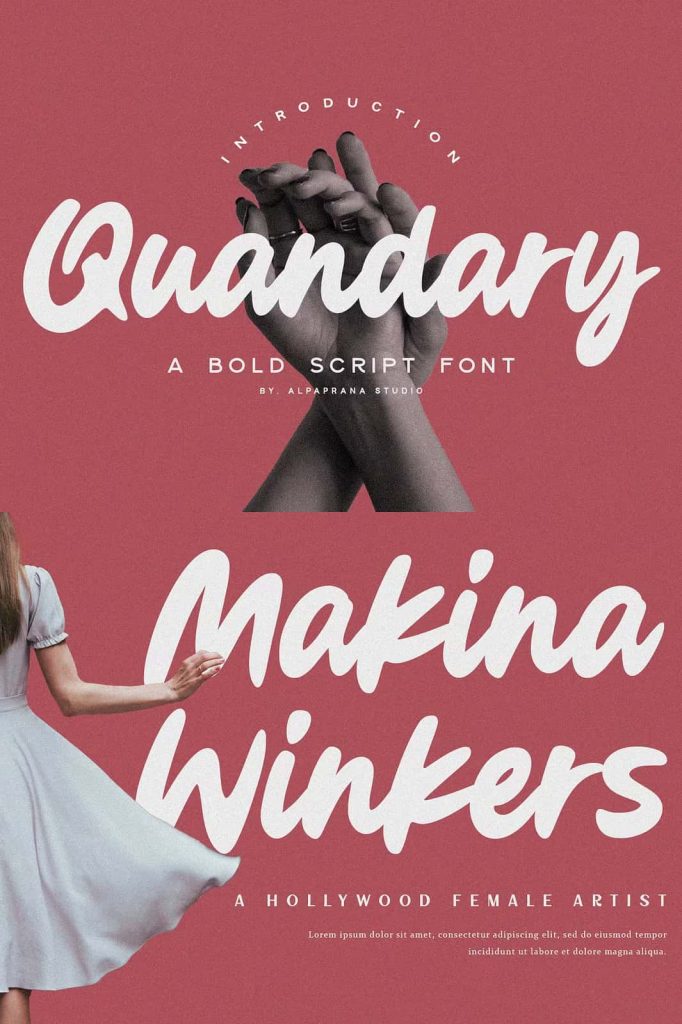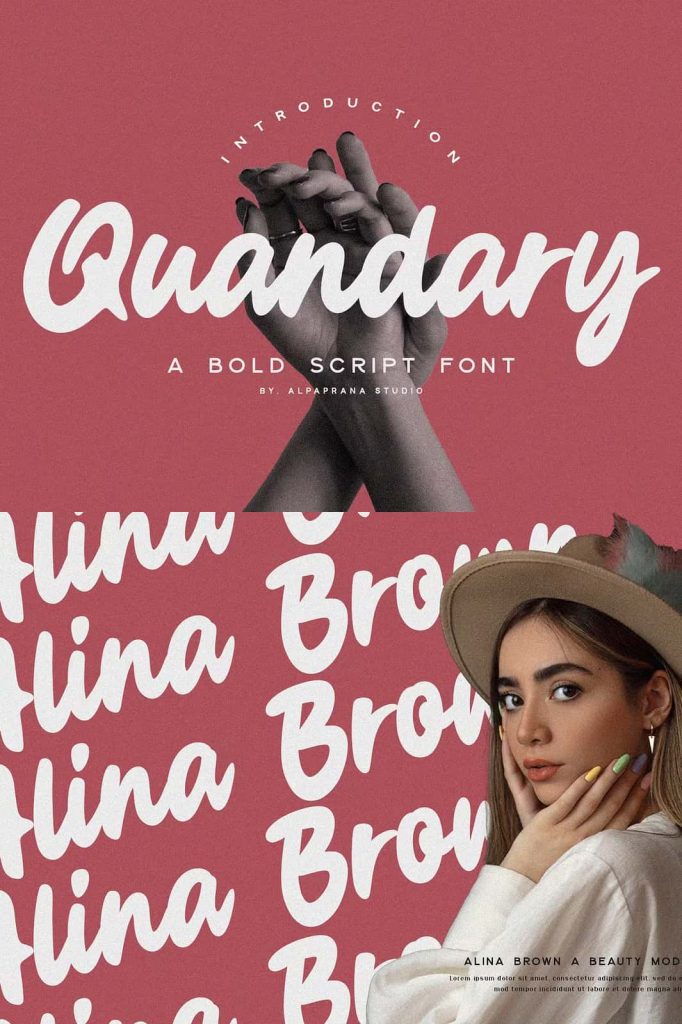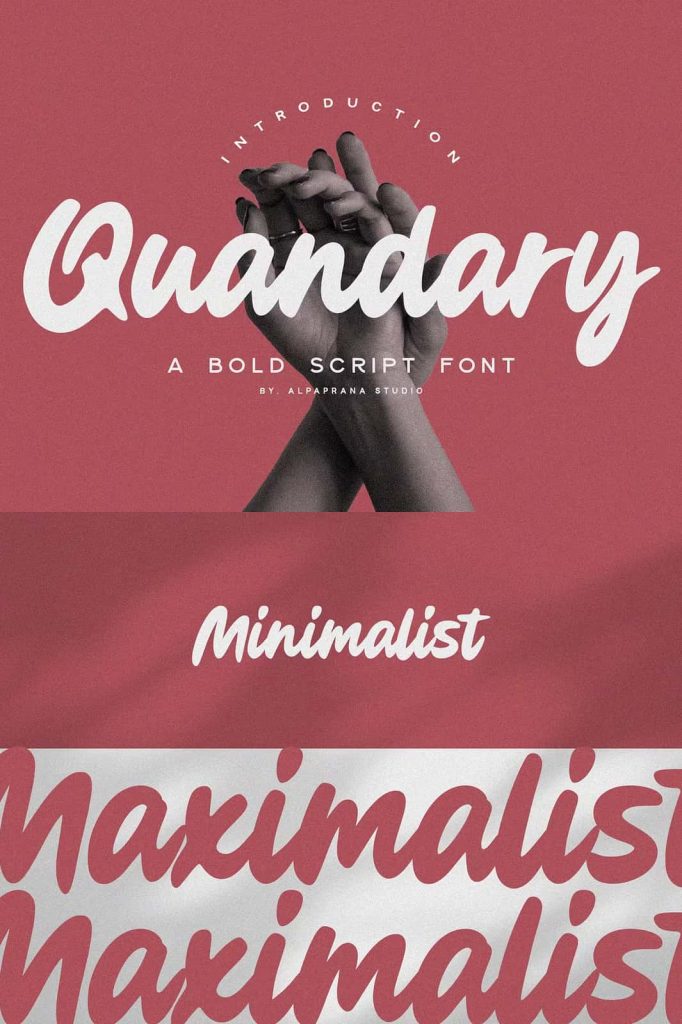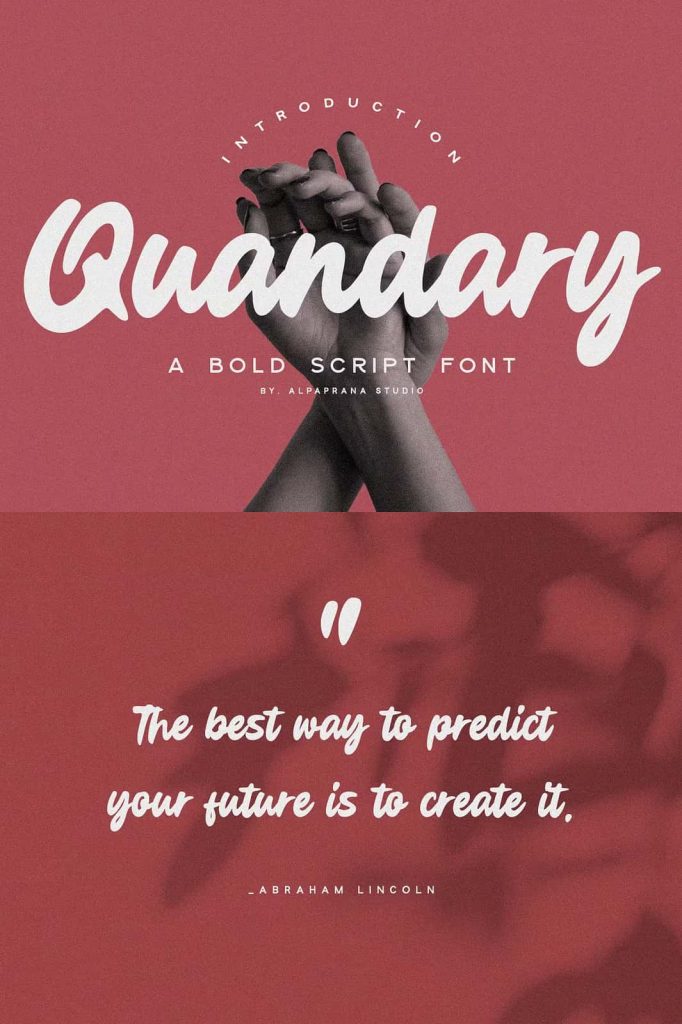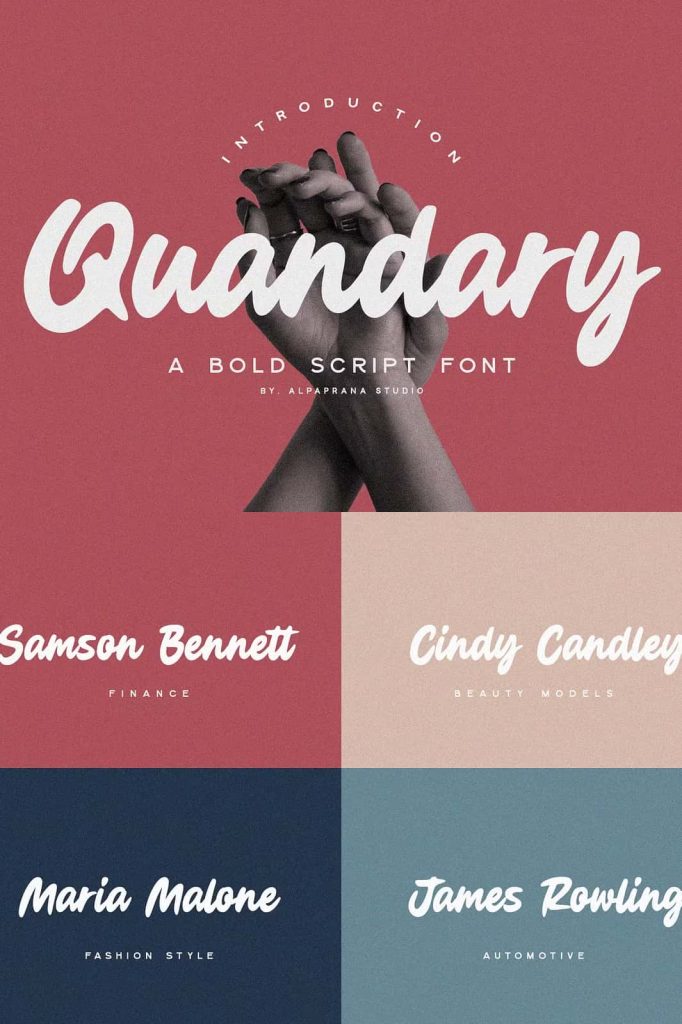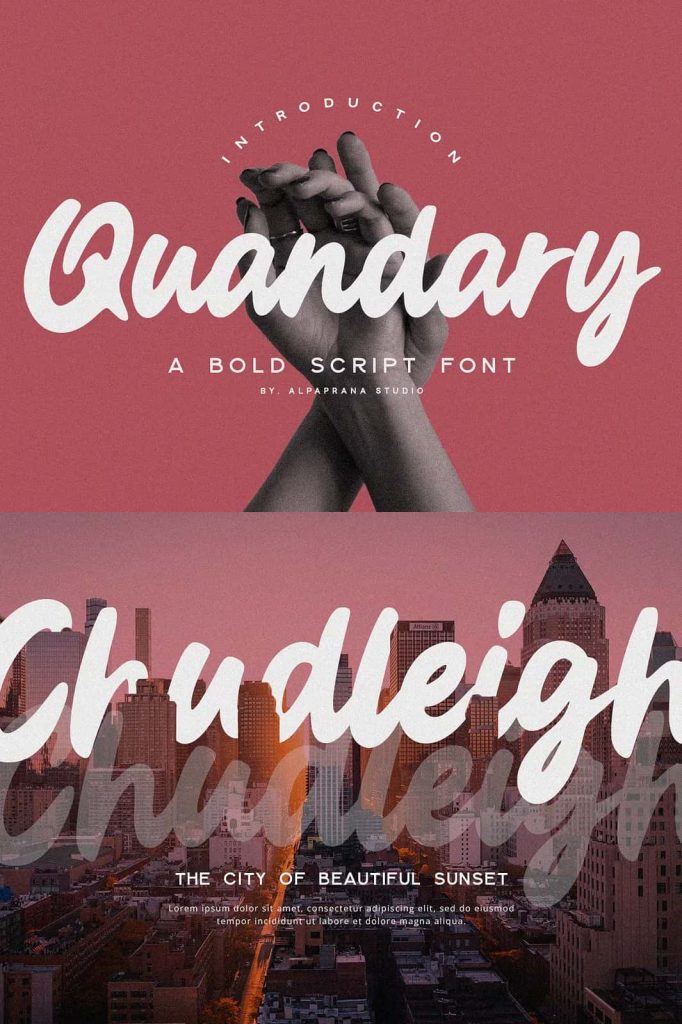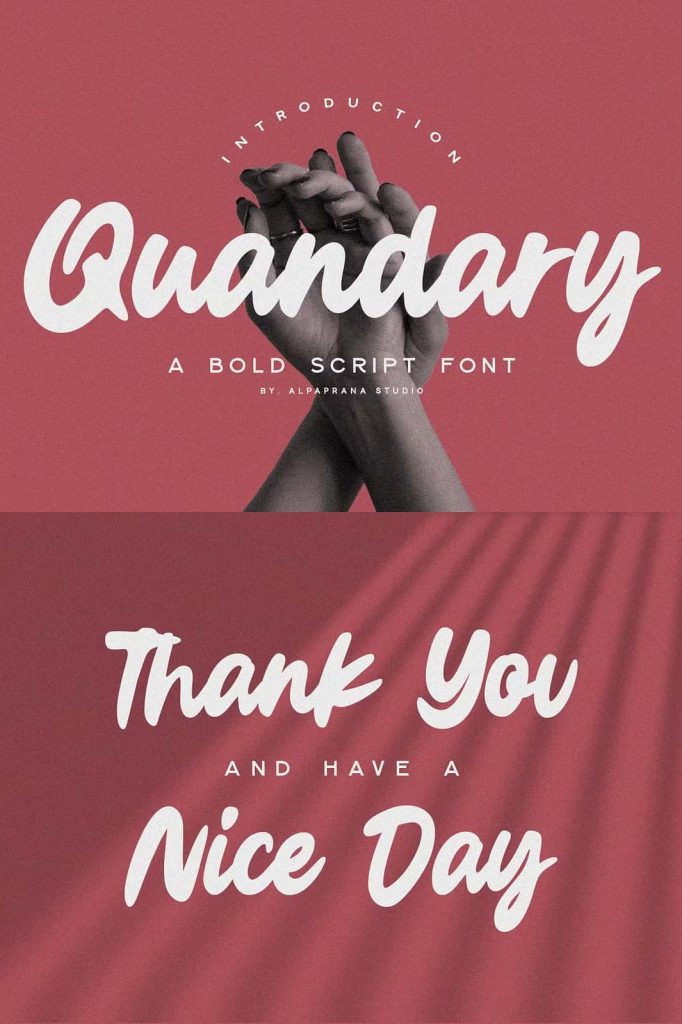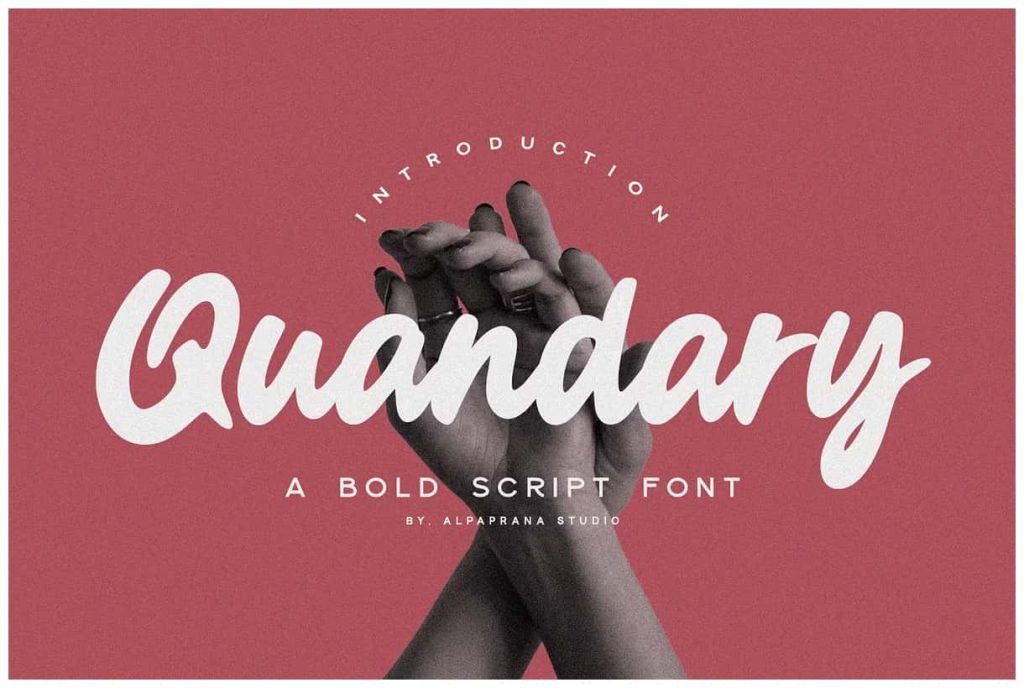
Quandary – Bold Script
Quandary: A Modern Script Font with Elegant and Contemporary Appeal
Quandary is a script font created to express elegance, confidence, and modern style through fluid and expressive letterforms. Designed with a refined balance between sophistication and creativity, Quandary delivers a visual presence that feels both polished and dynamic. Its smooth strokes and natural rhythm allow text to flow beautifully, making it an excellent choice for designs that need to feel premium, expressive, and visually engaging.
This typeface does more than decorate words. Quandary enhances communication by adding personality and emotional depth to every project. Whether used as a bold centerpiece or a subtle accent, it elevates design work with a contemporary script aesthetic that feels intentional and refined.
Elegant Script Design with a Modern Feel
The core strength of Quandary lies in its elegant script construction combined with a modern sensibility. The letterforms feature graceful curves and confident strokes that create a smooth and balanced flow across words and phrases. Unlike overly ornate script fonts, Quandary maintains clarity and structure, ensuring that beauty never comes at the expense of readability.
This modern approach allows Quandary to adapt easily to current design trends. It feels fresh and relevant, making it suitable for both timeless branding projects and contemporary creative campaigns. The font communicates sophistication while remaining approachable and versatile.
Designed for Strong Branding and Visual Identity
Quandary performs exceptionally well in branding and logo design, where a clear and memorable identity is essential. Its script style introduces a sense of craftsmanship and exclusivity, helping brands stand out in competitive markets. The font works particularly well for businesses that want to convey elegance, creativity, or a premium lifestyle image.
In logotype and lettering projects, Quandary delivers a signature-like quality that feels personal and distinctive. The flowing connections between characters create a cohesive and confident mark that reinforces brand recognition across different platforms.
Perfect for Fashion, Clothing, and Merchandise
Quandary is an excellent choice for fashion-related designs, including clothing graphics, shopping bags, and t-shirt prints. Its expressive script adds personality and style to apparel, making designs feel curated and intentional. When applied to merchandise, the font enhances perceived value and visual appeal.
The clean yet expressive nature of Quandary ensures that it remains legible on fabric and printed materials, even when scaled or applied to different textures.
High Impact for Posters and Editorial Design
Quandary brings strong visual impact to posters, magazine layouts, and editorial headlines. Its flowing script naturally draws attention, making it ideal for titles, cover text, and featured quotes. The font adds movement and energy to layouts, guiding the reader’s eye and enhancing the overall composition.
In magazine and editorial use, Quandary pairs effectively with clean serif or sans serif fonts. This contrast creates a clear hierarchy while allowing the script to shine as a focal element.
Versatile Applications Across Print and Digital Media
Quandary adapts seamlessly across a wide range of design projects. It performs beautifully in packaging design, where elegance and differentiation play a crucial role. On book covers, the font adds a refined and expressive tone that complements storytelling and visual narrative.
In photography projects, Quandary works well for watermarks, titles, and promotional materials, adding a professional and artistic touch. It is also well suited for special events such as weddings, exhibitions, and launches, where sophisticated typography helps set the mood and elevate the experience.
Optimized for Creative Flexibility
Quandary is designed to support creative freedom without compromising functionality. Its consistent stroke weight and balanced spacing allow designers to use it confidently across different sizes and formats. Whether applied to large-scale displays or smaller design elements, the font maintains clarity and visual cohesion.
This flexibility makes Quandary a dependable choice for both print and digital design projects, including web layouts, social media graphics, and promotional campaigns.
A Script Font Built to Elevate Design
Quandary is more than a decorative script font; it is a versatile design tool that brings elegance, modernity, and character to creative work. Its refined style, broad application potential, and strong visual presence make it suitable for branding, fashion, editorial, packaging, and event design.
For designers seeking a modern script font that combines elegance with contemporary appeal, Quandary offers a powerful solution that enhances visual identity and leaves a lasting impression.